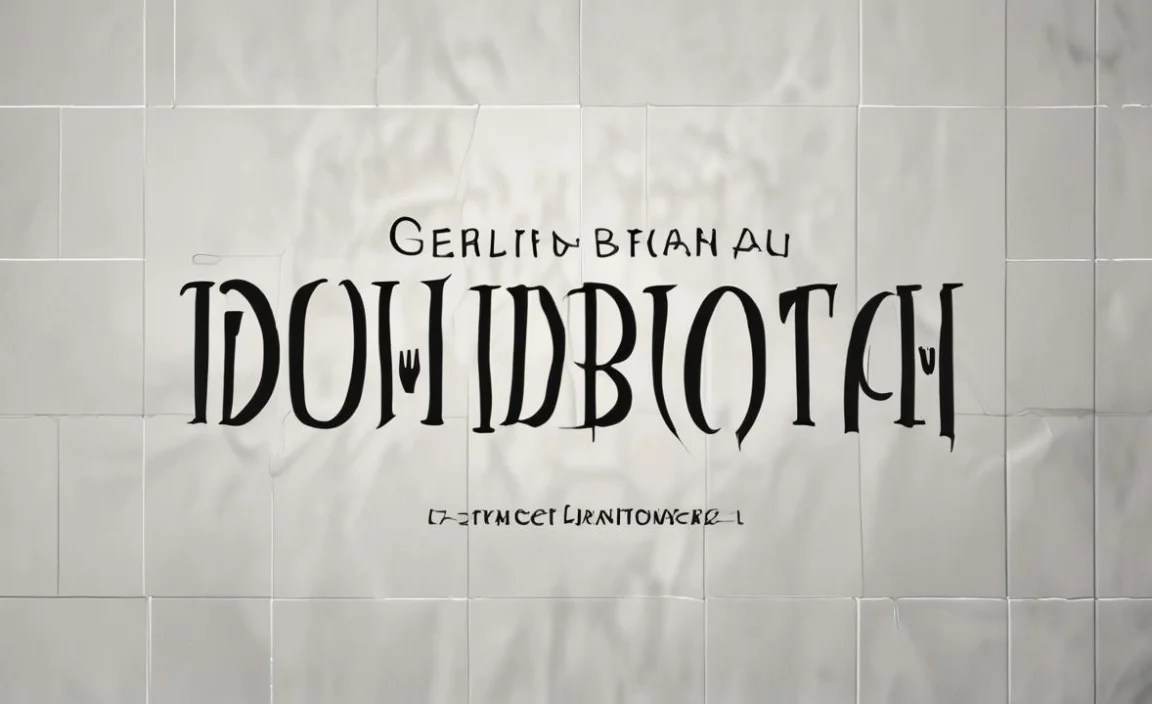
If you’re a huge fan of Tim Burton and his iconic films, you can incorporate his unique style into your designs. Doing so will add an eerie yet whimsical touch. Tim Burton fonts draw inspiration from his work.
His films include Edward Scissorhands, Sleepy Hollow, Beetlejuice, Batman, Frankenweenie, and Ed Wood. These fonts capture the peculiar, gothic, and whimsical elements Burton brings to his stories. They are perfect for all sorts of creative projects.
Many free Tim Burton fonts are available for download, including Bootleg Tim Burton. It comes in different versions like Bootleg Tim Burton regular. These fonts are ideal for designers looking to add a little flair inspired by Burton’s films and characters.
Tim Burton’s style has influenced generations of writers, designers, and filmmakers. From The Nightmare Before Christmas to Alice in Wonderland, the Tim Burton aesthetic is unmistakable. His films combine the macabre with the fantastical, and his fonts reflect this in their sharp edges, dramatic curves, and quirky details. Using these fonts in your designs helps capture the essence of Burton’s visual world, making them suitable for everything from book covers to posters and even websites.
How Tim Burton Fonts Can Enhance Your Designs
When you incorporate a Tim Burton font into your work, you’re not just using a typeface; you’re adding a layer of storytelling. Just like the characters in The Corpse Bride or Charlie and the Chocolate Factory, these fonts have their own personality. They speak the language of Tim Burton, helping you craft the mood and tone of your project. Whether you’re designing a Christmas card that channels the spookiness of The Nightmare Before Christmas, or a book cover for a peculiar children’s story, a Burton-inspired font can make all the difference.
The beauty of these fonts lies in their versatility. Designers can use them for both serious and playful projects. For instance, Edward Scissorhands and Beetlejuice have a darker feel, while Charlie and the Chocolate Factory and Alice in Wonderland offer more whimsical elements. By choosing the right font, you can evoke the specific mood of the Tim Burton film or story you are referencing.
Examples of Free Tim Burton Fonts
- Bootleg Tim Burton – A bold and dramatic font that captures the gothic essence of Burton’s style.
- Christmas Font – Perfect for holiday-themed projects with a Tim Burton twist, drawing inspiration from The Nightmare Before Christmas.
- Sleepy Hollow – A handwritten-style font that channels the eerie and dark atmosphere of Burton’s Sleepy Hollow film.
- Tim Burton Film Fonts – Fonts inspired by his numerous films, capturing the distinct details and elements of Burton’s world.
Using Tim Burton Fonts in Your Work
As a writer, these fonts can bring a unique element to your story. Imagine creating a book cover for a novel inspired by Beetlejuice or designing a poster for a movie about the peculiar children of Tim Burton’s universe. The fonts will not only convey the mood of your project but also set it apart visually, creating a lasting impression.
Designers can use these fonts in web design, logo creation, and even advertising campaigns. The distinctive look and feel of the font will grab attention and transport people into the fantastical worlds that Tim Burton is known for.